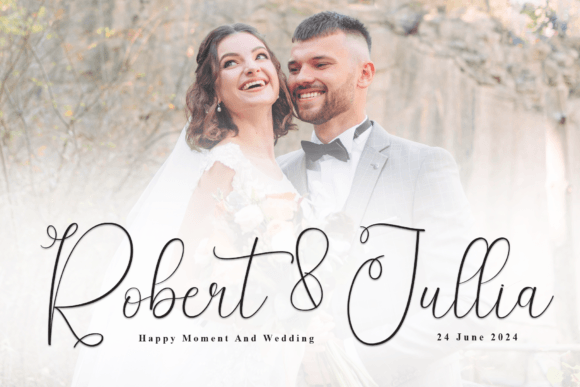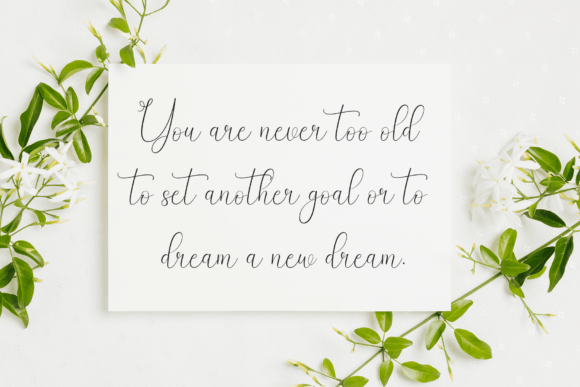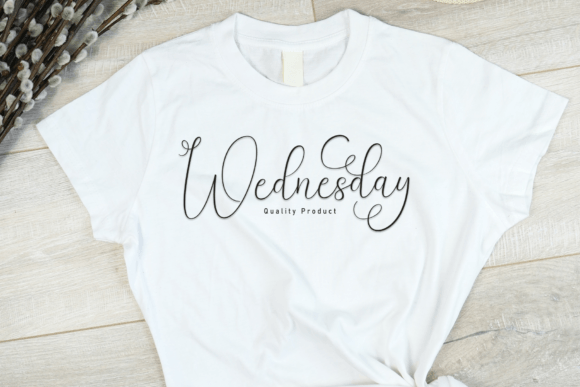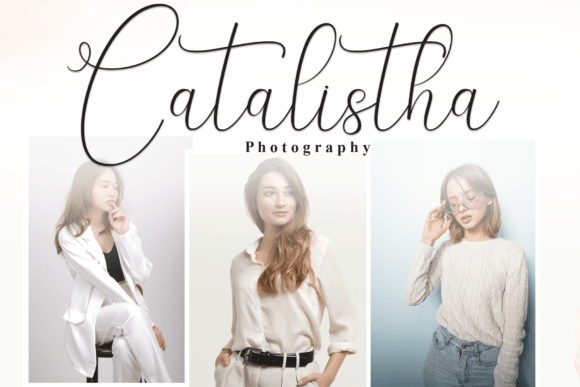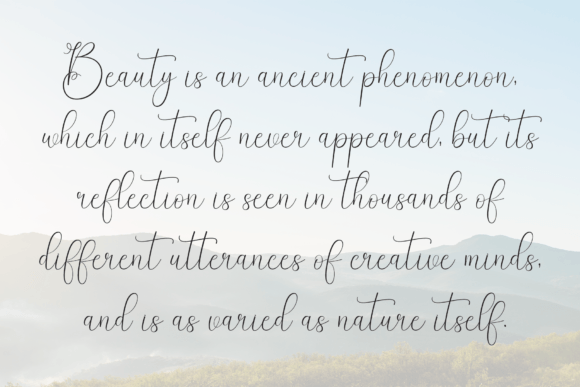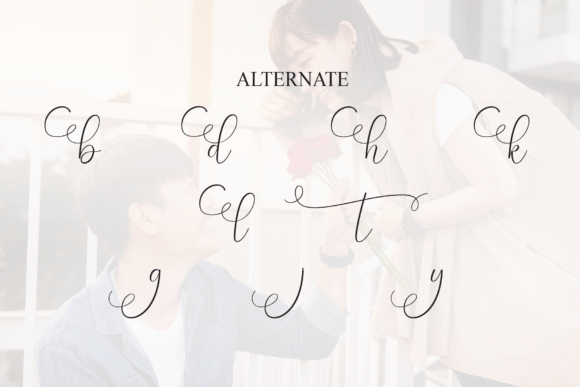
Introducing Beautiful Darling Font: Elevate Your Designs with Timeless Elegance
Are you on the hunt for a font that exudes charm, sophistication, and a touch of whimsy? Look no further than the Beautiful Darling Font. This lovely handwritten font is making waves in the design community, and for good reason. Its timeless appeal and unique character make it the perfect choice for designers, crafters, and anyone looking to add a dash of elegance to their projects.
Handwritten fonts have a way of adding a personal touch to any design. They evoke feelings of warmth, comfort, and nostalgia, making them perfect for a wide range of applications, from logos and branding to quotes and social media graphics. The Beautiful Darling Font is no exception. Its flowing lines, delicate curves, and charming imperfections make it a true standout in the world of handwritten fonts.
What Makes Beautiful Darling Font So Special?
So, what sets the Beautiful Darling Font apart from other handwritten fonts on the market? Here are just a few of its unique features:
- Unique and Beautiful Touch: Every letter in the Beautiful Darling Font has been carefully crafted to have its own distinct personality. From the subtle flair of the serifs to the gentle curves of the vowels, each character is a work of art in its own right.
- Timeless Appeal: Unlike trendy fonts that quickly go out of style, the Beautiful Darling Font has a timeless quality that ensures it will remain relevant for years to come. Its classic elegance makes it perfect for designs that need to stand the test of time.
- Elegant and Versatile: Whether you’re creating a logo, branding materials, or social media graphics, the Beautiful Darling Font is up to the task. Its elegant lines and sophisticated charm make it suitable for a wide range of applications and industries.
The Beautiful Darling Font is a dream come true for designers and crafters. Its unique character and timeless appeal make it perfect for a wide range of projects, from:
- Logos and Branding: Create eye-catching logos and branding materials that showcase your brand’s personality and style.
- Quotes and Social Media Graphics: Add a touch of elegance to your quotes and social media graphics, making them perfect for sharing on Instagram, Facebook, and more.
- Stationery and Invitations: Add a personal touch to your stationery, invitations, and other paper goods with the Beautiful Darling Font.
Why Choose Beautiful Darling Font?
With so many fonts on the market, why choose the Beautiful Darling Font? Here are just a few reasons:
- High-Quality Design: The Beautiful Darling Font has been carefully crafted to ensure that every character is of the highest quality.
- Easy to Read: Despite its elegant lines and sophisticated charm, the Beautiful Darling Font remains easy to read, making it perfect for body text and headlines.
- Versatile: The Beautiful Darling Font can be used for a wide range of applications, from digital designs to print materials.
In conclusion, the Beautiful Darling Font is a true gem in the world of handwritten fonts. Its unique character, timeless appeal, and elegant lines make it perfect for designers, crafters, and anyone looking to add a touch of sophistication to their projects. Whether you’re creating logos, branding materials, or social media graphics, the Beautiful Darling Font is sure to elevate your designs to the next level.